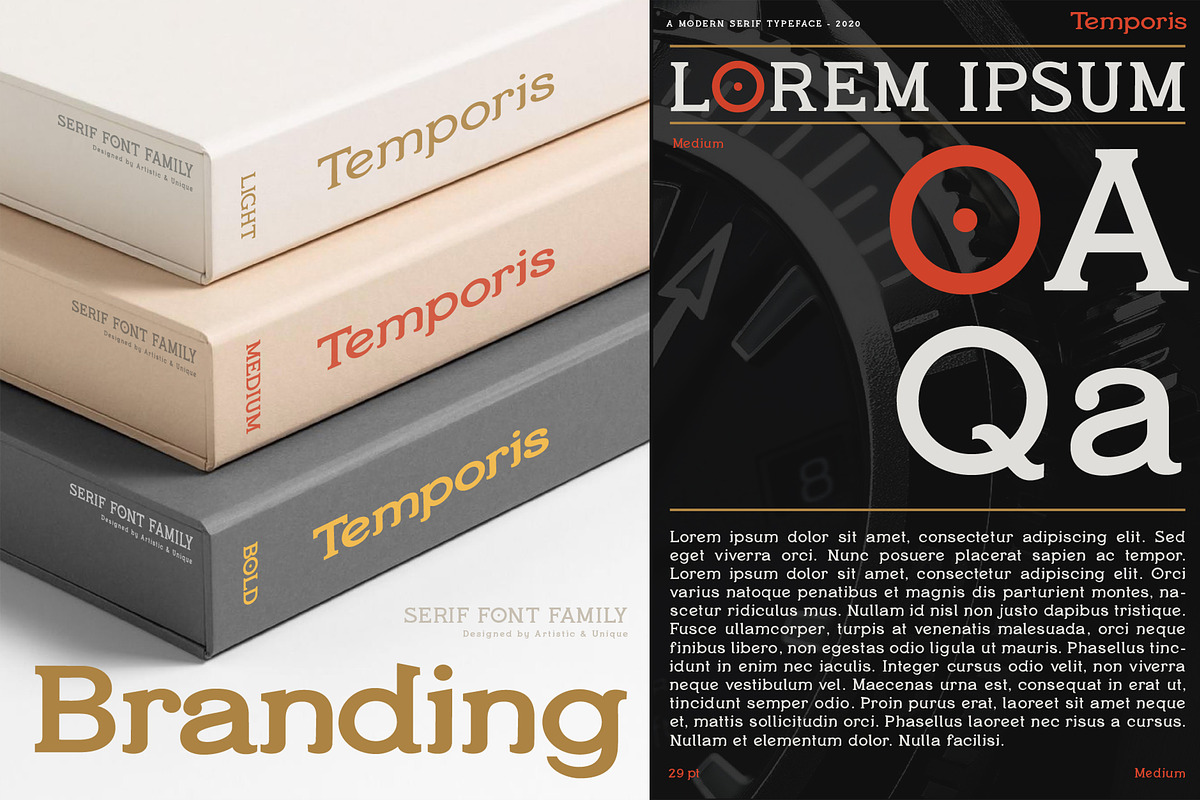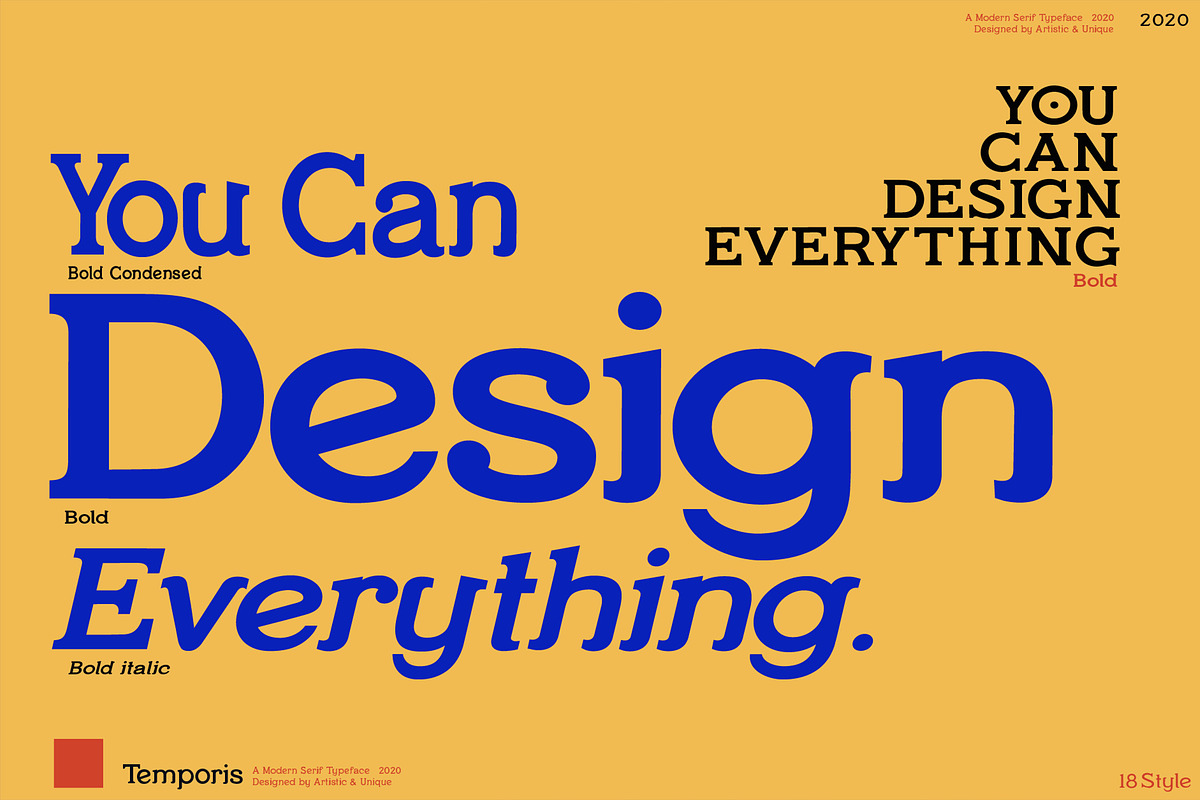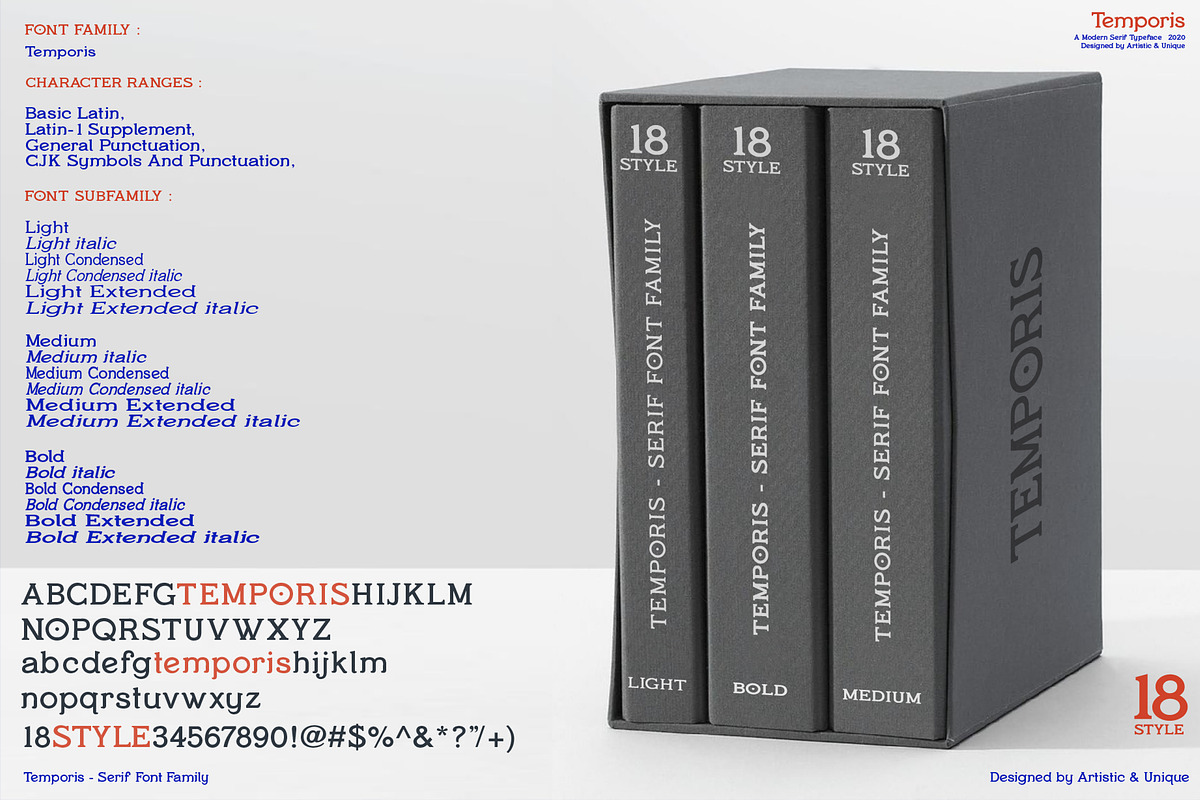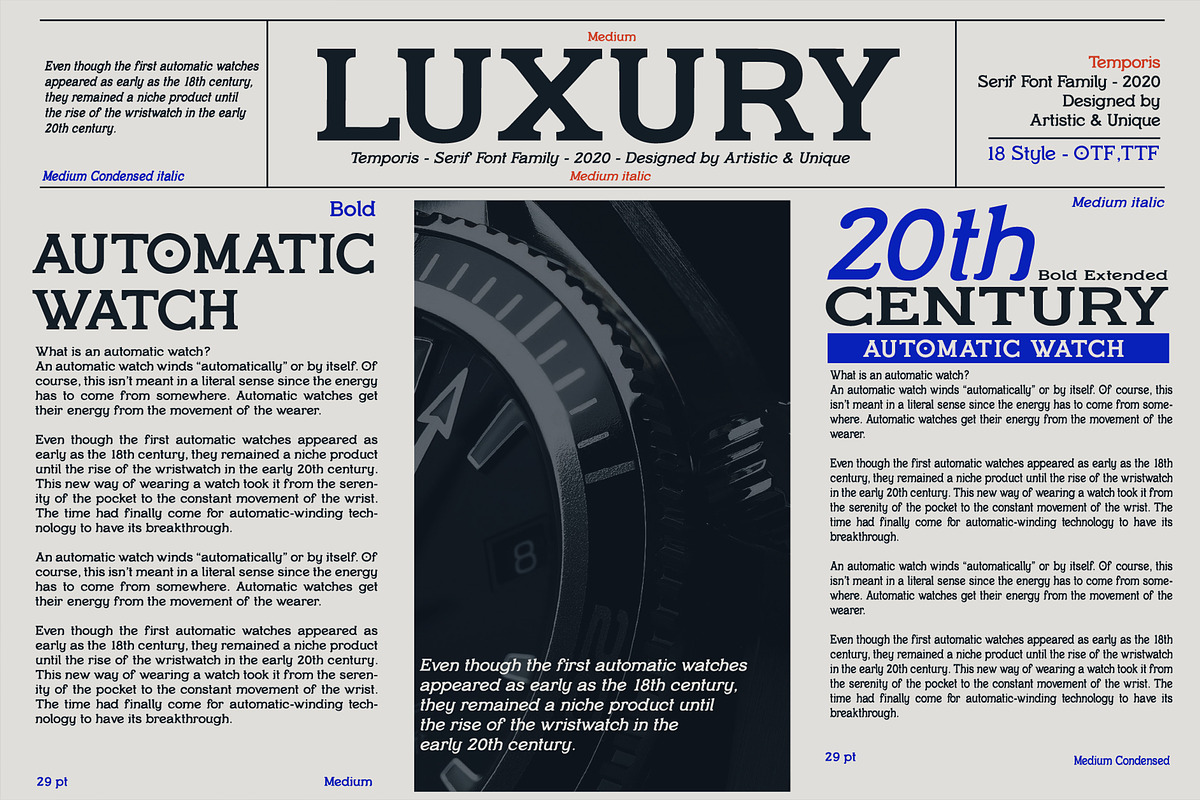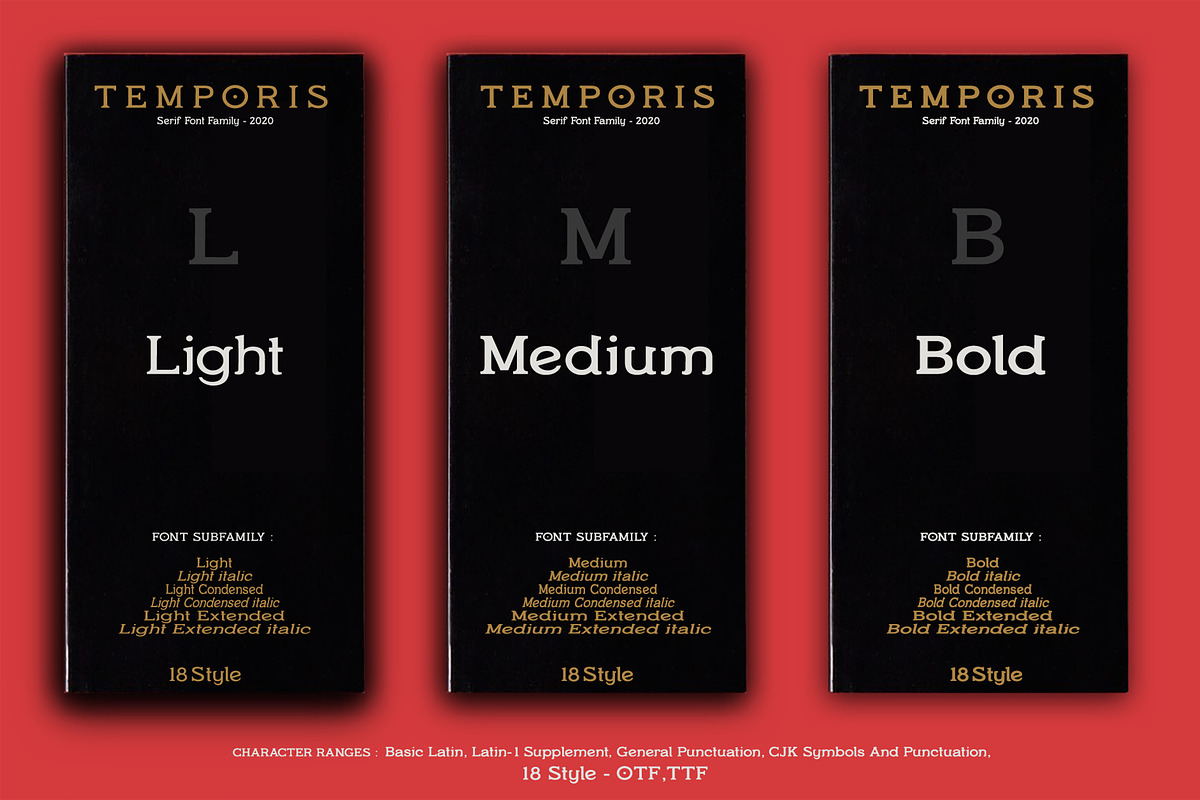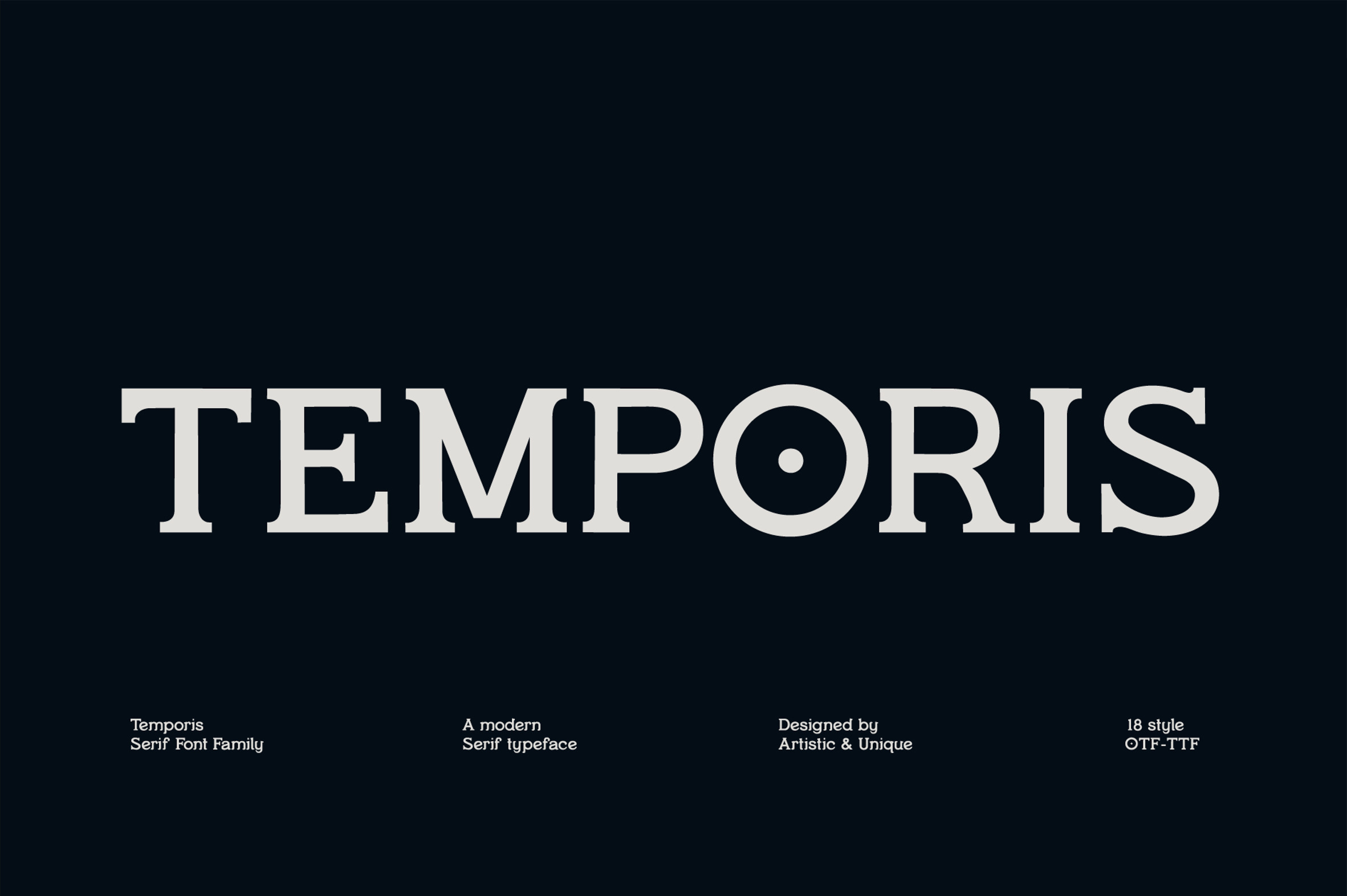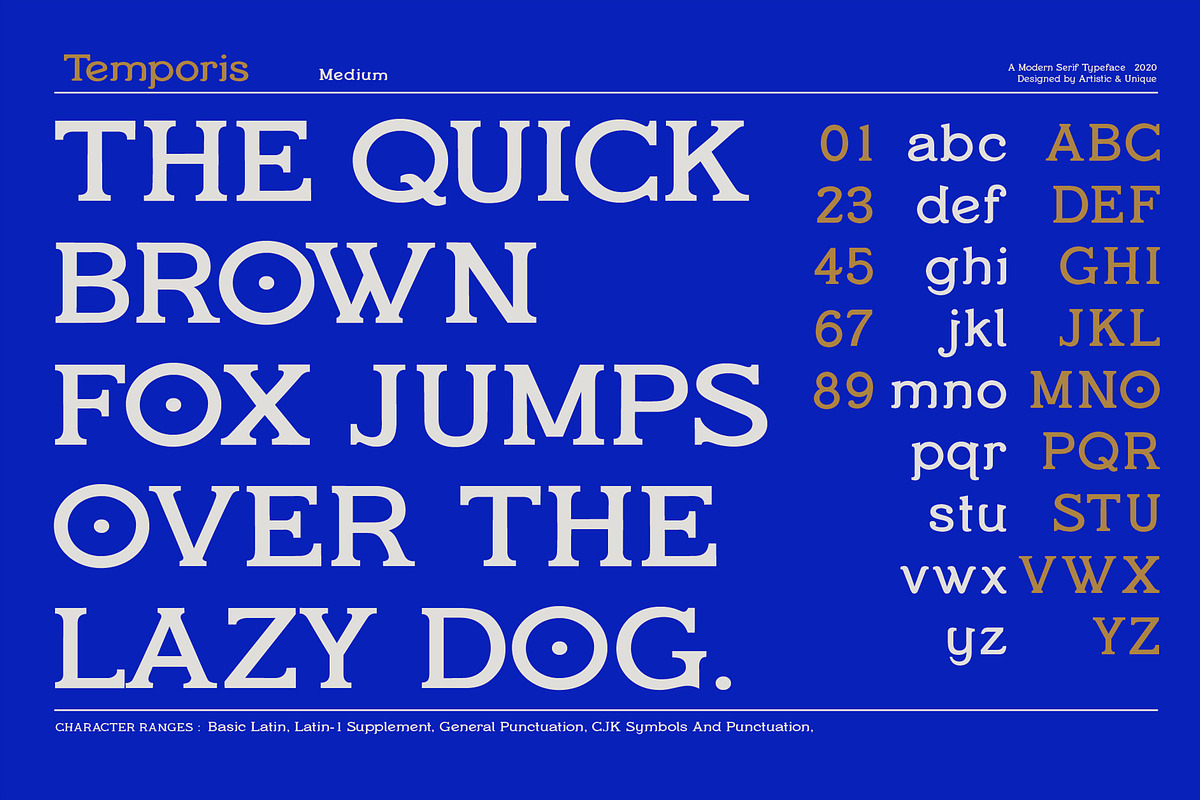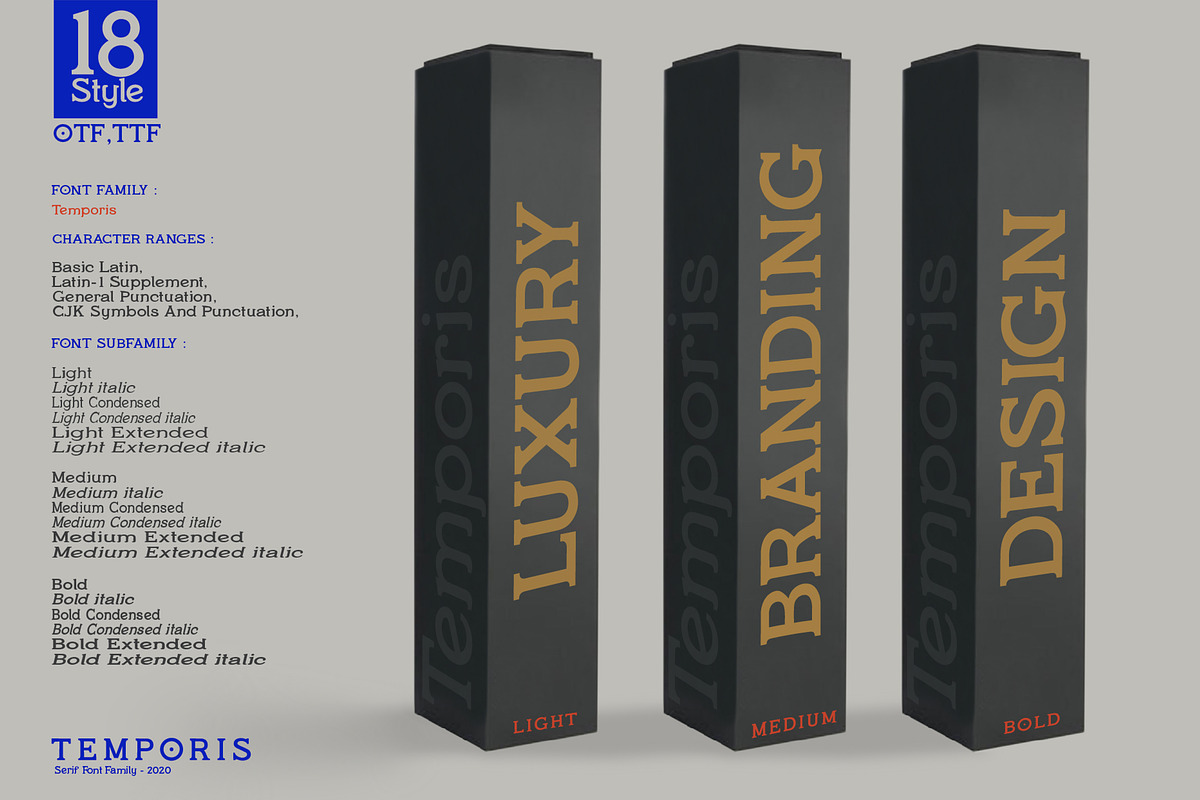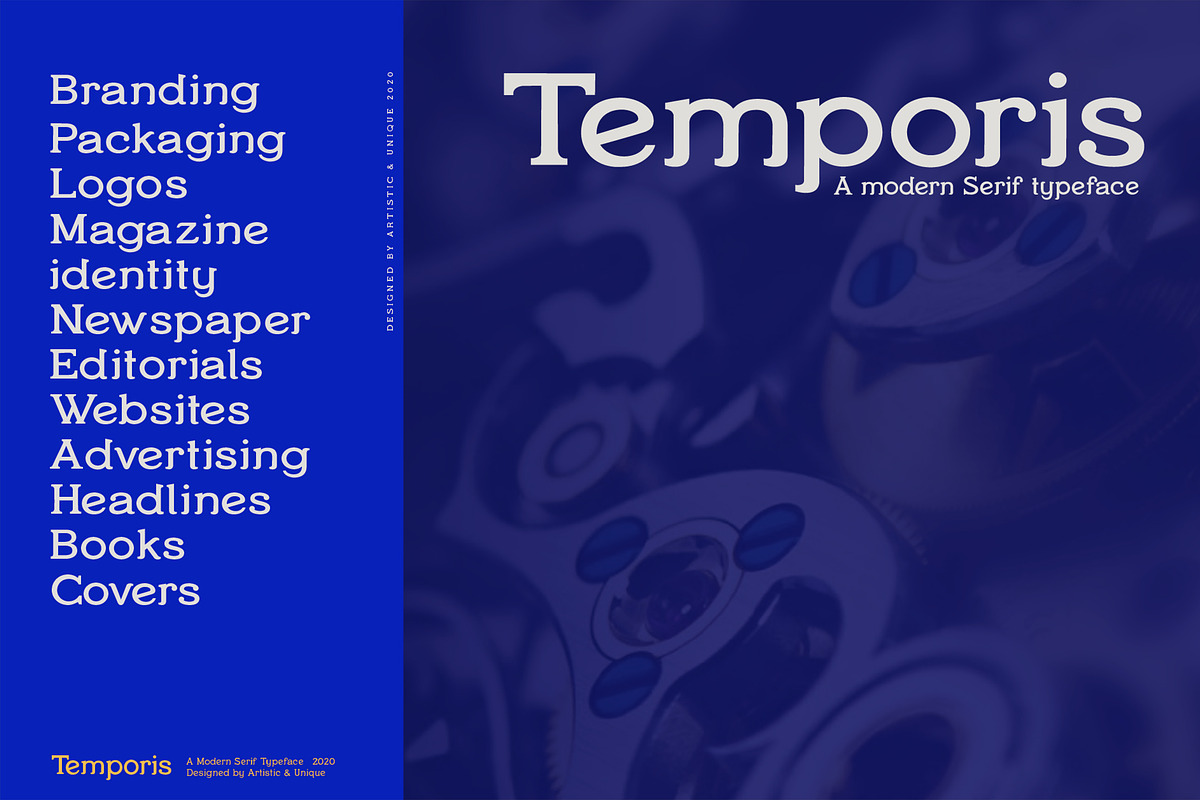
Temporis - Serif Font Family
INTRODUCING
Temporis is a modern serif font family. This font offers 18 different styles and can meet your needs in innovative pursuits with different character designs in its structure. It has a timeless structure where you can create your modern-elegant or classic design alternatives. This font offers a wide variety of styles to help you discover the best mood for your projects, from body text to big headlines, from classic to modern and bold styles.
Well suited for books and magazines, editorials, headlines, websites, logos, branding, advertising and more. Temporis font family can meet your needs in all modern and classic creative projects.
With this font you can create your unique designs.